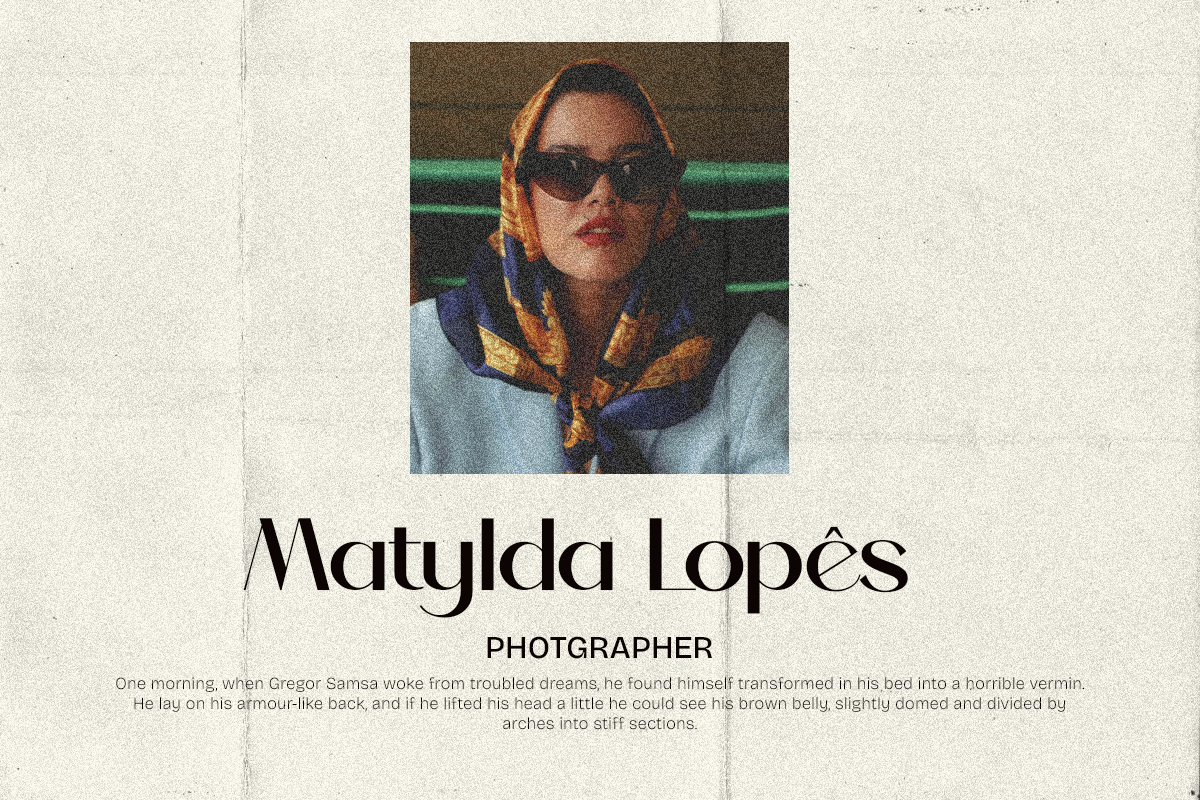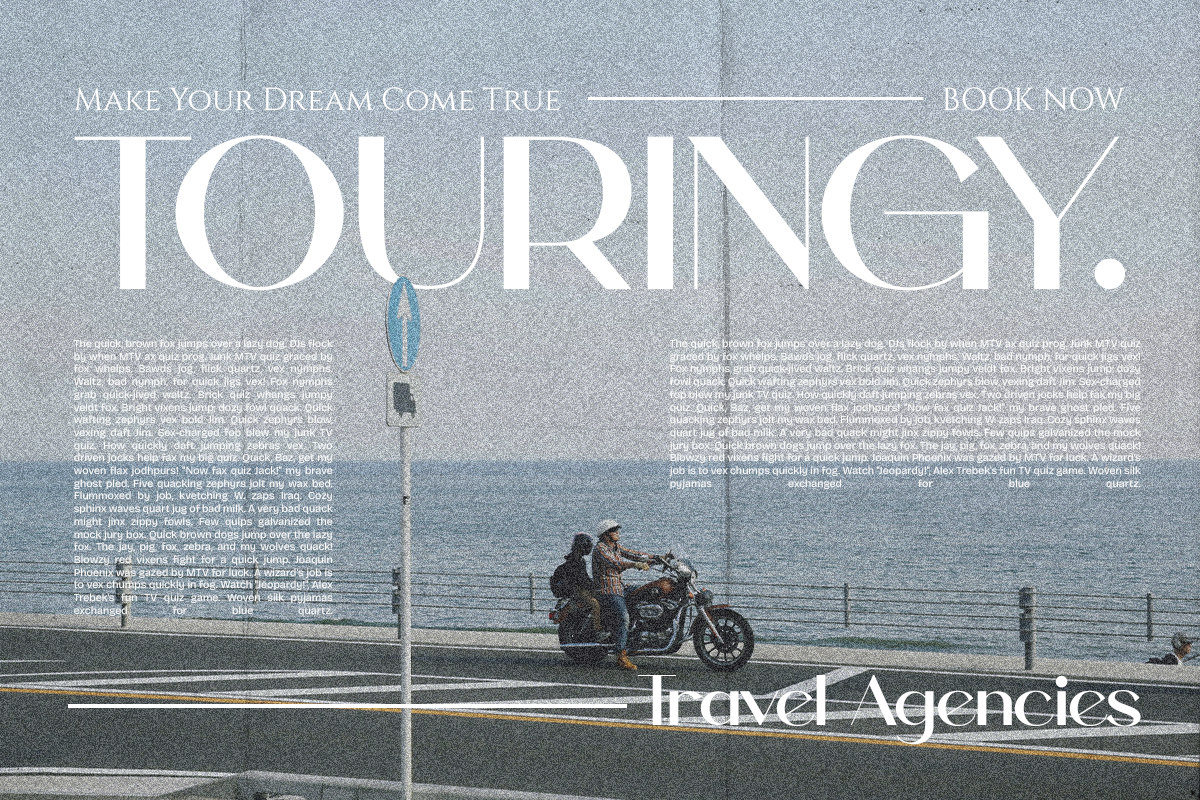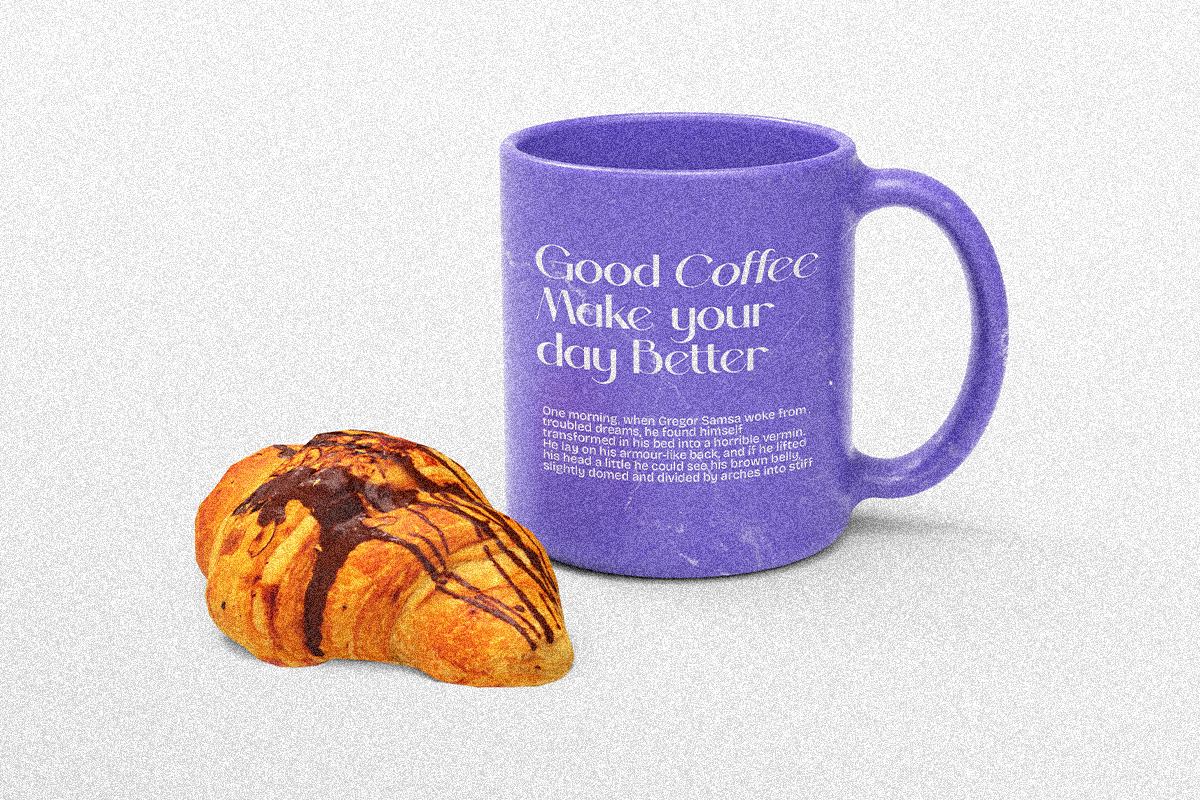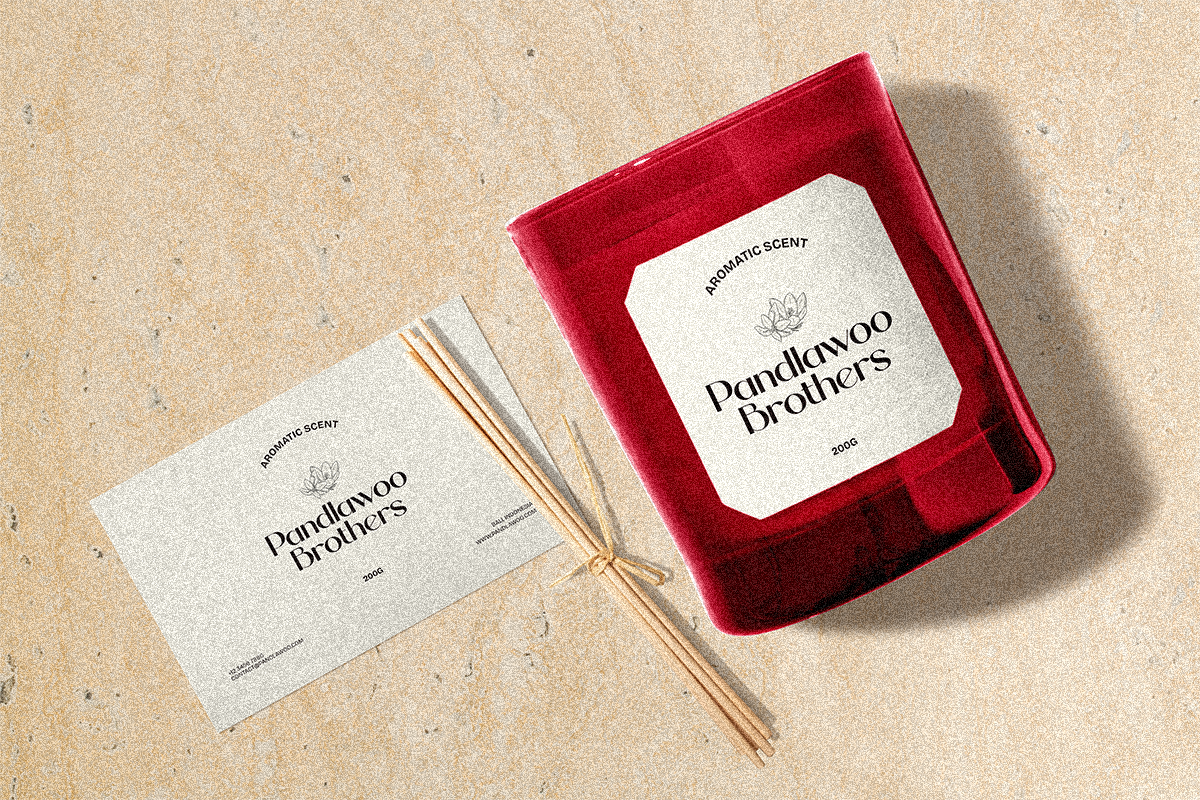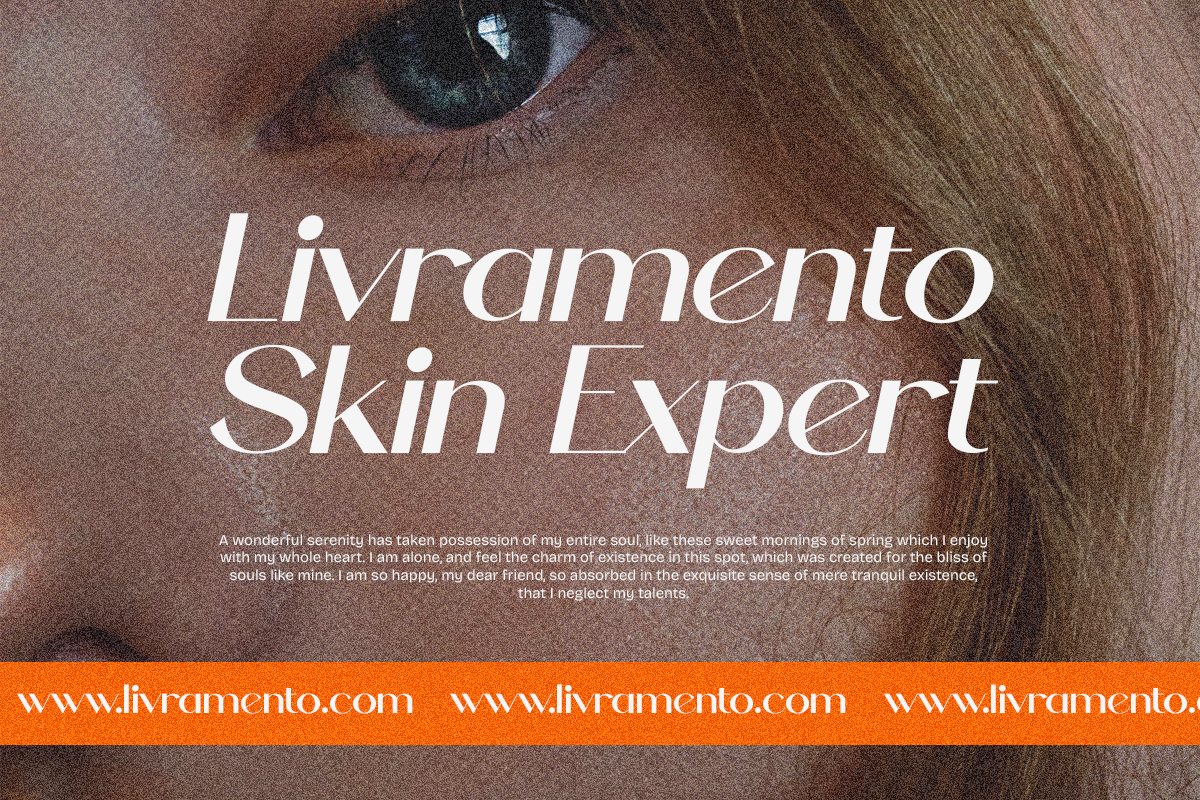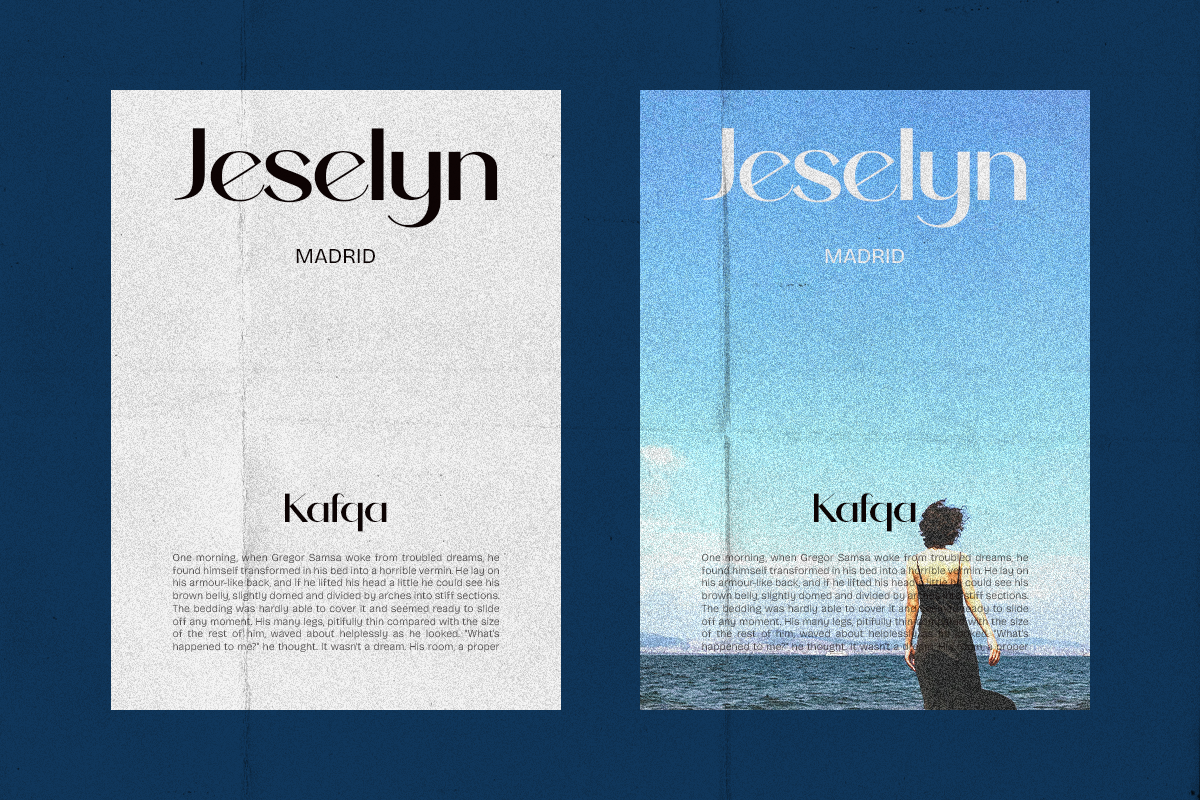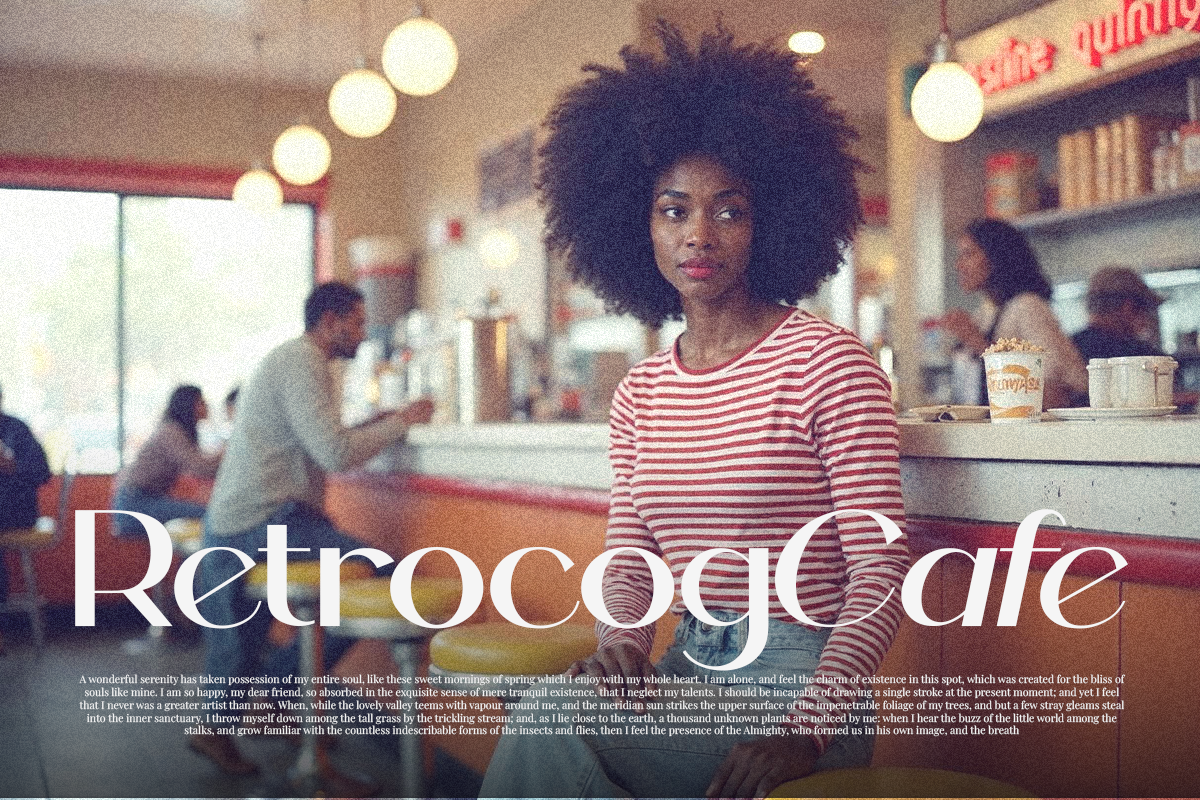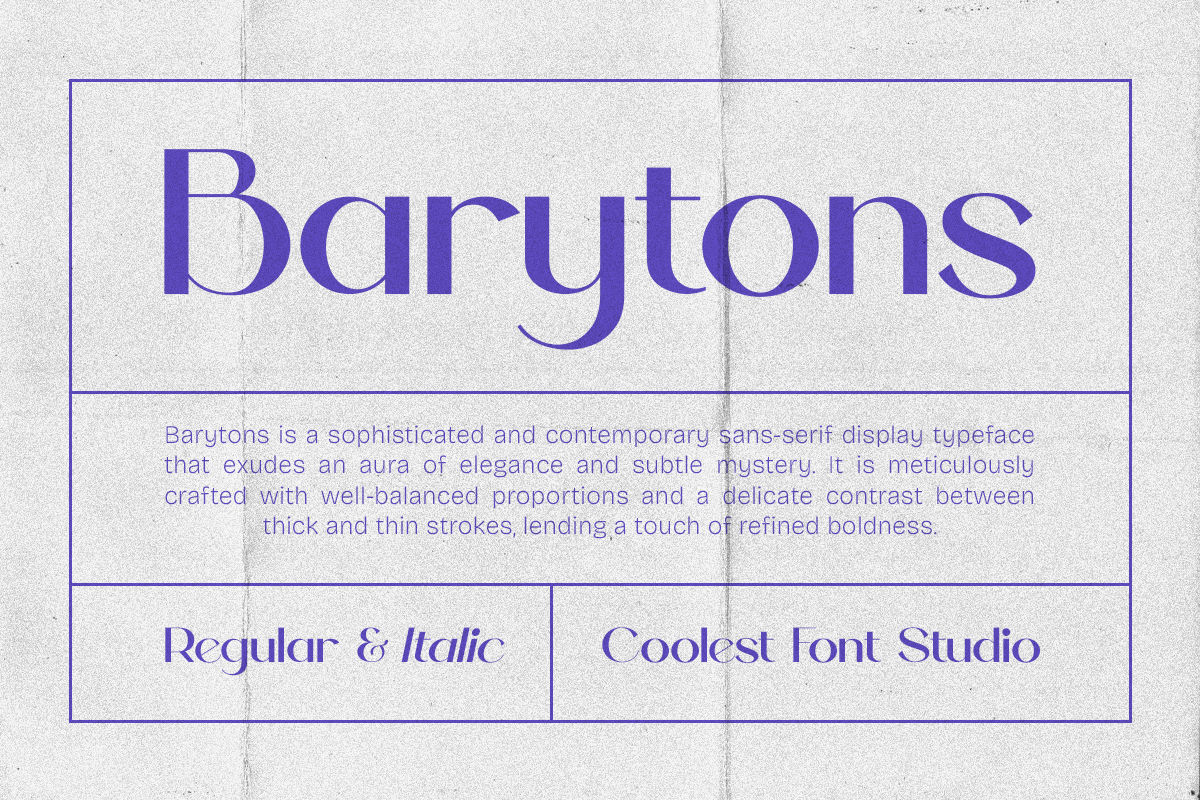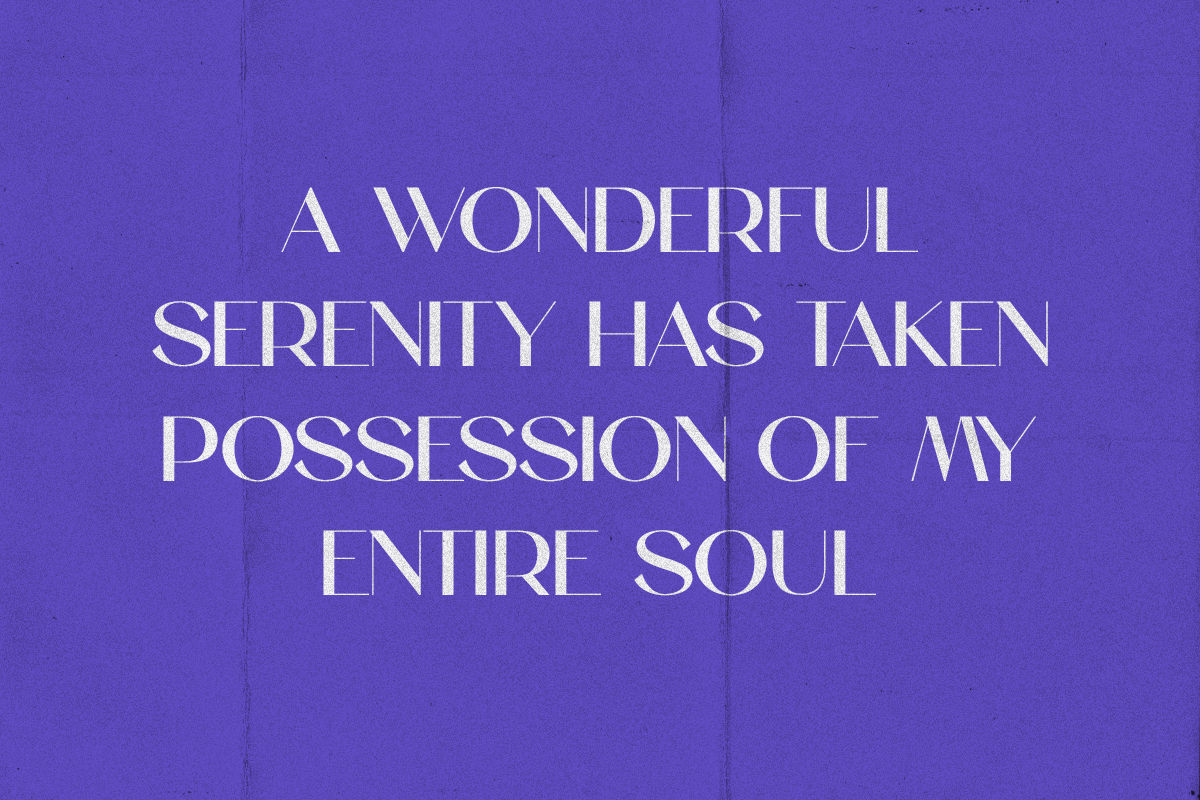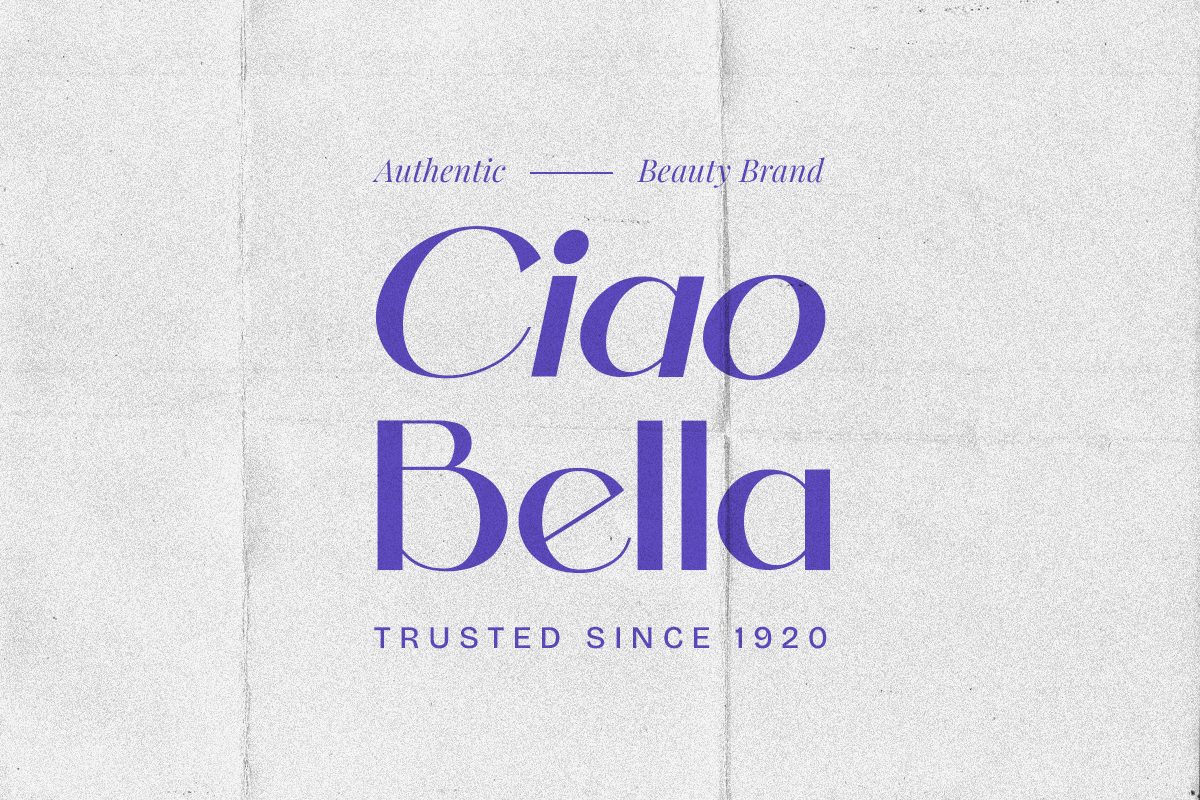
Barytons – Sans Serif Font
Barytons – Sans Serif Font (Regular & Italic)
Say hello to Barytons, a clean and modern sans serif font designed to bring simplicity and elegance to your creative work. With its sleek, geometric letterforms, Barytons is a perfect fit for branding, editorial design, logo work, web headers, and more.
This typeface comes in two versatile styles – Regular and Italic – giving you the flexibility to create strong typographic contrast while keeping your designs consistent and professional.
- Clean and modern sans serif look
- Perfect for branding, posters, logos, and headlines
- Includes Regular and Italic styles
- Great readability at any size
Whether you’re working on a digital interface, a printed magazine, or a stylish brand identity, Barytons brings clarity, confidence, and timeless style to every project.